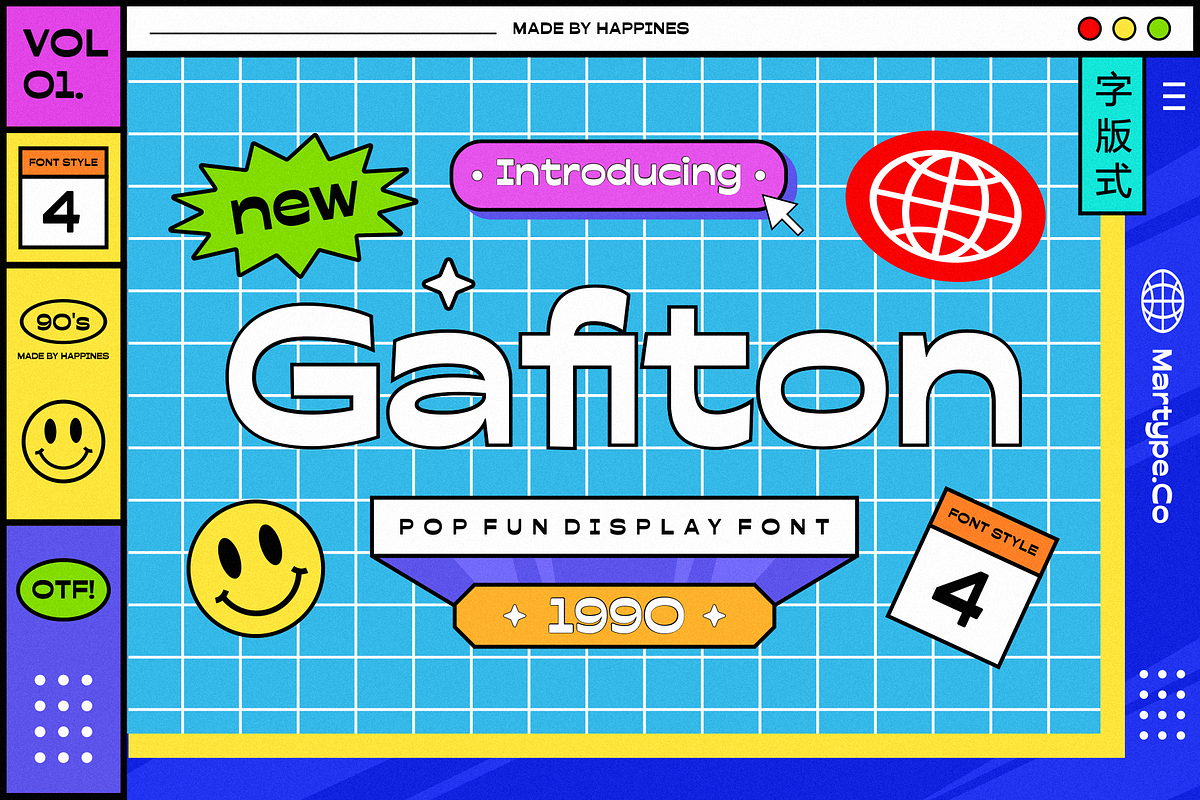
Gafiton - Pop Fun Display Font Free Download
The Gafiton - Pop Fun Display Font Free Download is a vibrant and playful typeface that adds energy and excitement to your designs. With its bold, dynamic shapes and eye-catching appeal, this font is perfect for projects that need a fun and modern touch. Ideal for posters, branding, packaging, and children's designs, Gafiton brings a cheerful and creative flair to any creative endeavor.
Gafiton - Pop Fun Display Font Free Download is perfect for designers who want to infuse their work with a burst of personality. Whether you’re working on promotional materials, event posters, or social media content, this font will help your designs stand out. Download this fun and colorful font today and bring your projects to life with its bold, playful style!